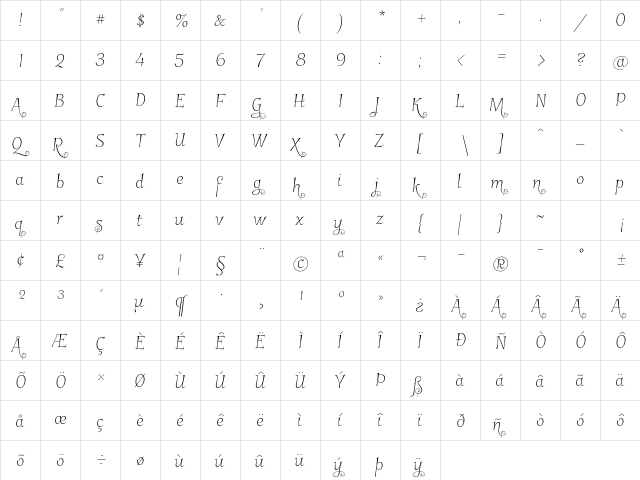
GarineldoNo02 Regular
| Designer | gluk |
Design Context for GarineldoNo02 Typeface
GarineldoNo02 is a composed and adaptable typeface that performs quietly and consistently across a wide range of design contexts.